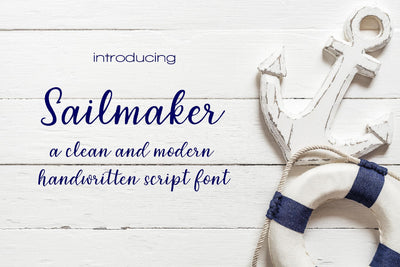
Sailmaker Script A Modern Minimalistic Hand Lettered Font
This is a sweet and clean handwritten cursive font that’s great for content, signage, sketching and just about anything you can think of. While it definitely makes a great cut file, it's even better when used for stationery, invitations and printed material.